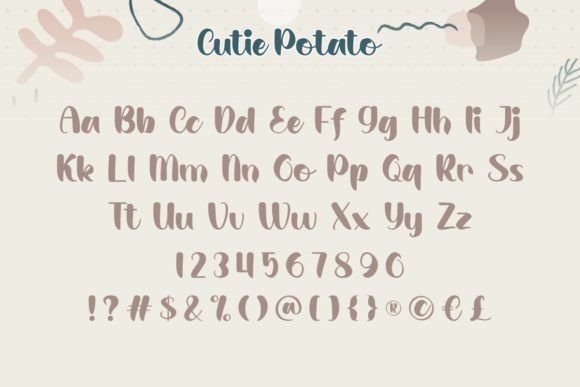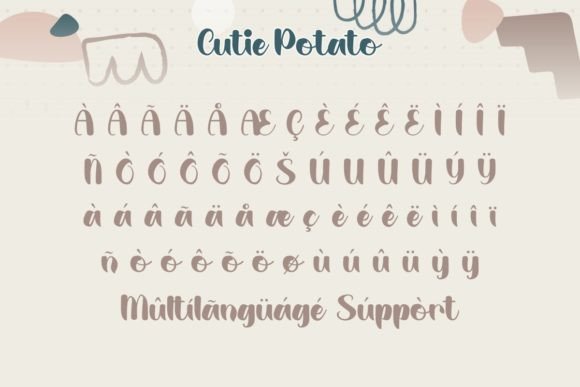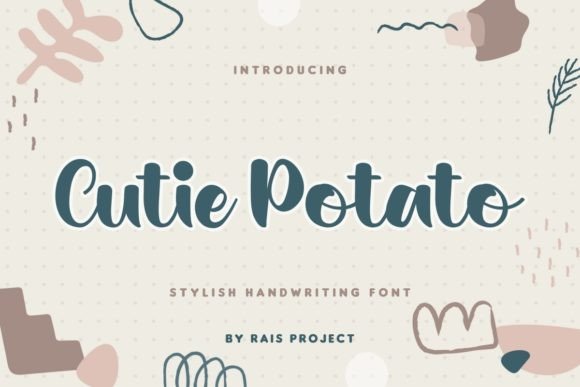
Introducing Cutie Potato Font: The Ultimate Quirky Script Font for Creative Projects
Are you tired of using the same old boring fonts for your creative projects? Look no further! Cutie Potato Font is here to add a touch of whimsy and playfulness to your designs. This fun and quirky script font is perfect for designers, crafters, and anyone looking to add some personality to their work.
What Makes Cutie Potato Font So Special?
Cutie Potato Font is a stylish, hand-drawn script font that boasts bold strokes and irregular shapes, giving it a unique and charming personality. Its cute and playful letterforms make it an excellent choice for creative projects that need a dash of fun and quirkiness. Whether you’re working on branding, packaging, or product designs, Cutie Potato Font is sure to make your project stand out from the crowd.
The Perfect Font for Creative Projects
Cutie Potato Font is designed to add a touch of whimsy to your creative projects. Its playful and charming personality makes it perfect for a wide range of applications, including:
- Branding: Use Cutie Potato Font to create a unique and memorable brand identity that sets you apart from the competition.
- Packaging: Add a touch of fun and quirkiness to your product packaging with Cutie Potato Font.
- Product Designs: Use Cutie Potato Font to create eye-catching product designs that showcase your brand’s personality.
- Stationery: Add a playful touch to your stationery, including greeting cards, invitations, and thank-you cards.
- Digital Media: Use Cutie Potato Font to create engaging and fun digital content, including social media graphics, blog posts, and email newsletters.
Key Features of Cutie Potato Font
Here are some of the key features that make Cutie Potato Font so special:
- Hand-drawn letterforms: Each letterform is carefully hand-drawn to give the font a unique and personal touch.
- Bold strokes: The bold strokes used in Cutie Potato Font give it a confident and playful personality.
- Irregular shapes: The irregular shapes used in the font add to its quirky and charming personality.
- Playful and cute: Cutie Potato Font is designed to be playful and cute, making it perfect for creative projects that need a touch of fun.
Why Choose Cutie Potato Font?
There are many fonts available that claim to be fun and quirky, but Cutie Potato Font stands out from the crowd. Here are just a few reasons why you should choose Cutie Potato Font for your next creative project:
- Unique personality: Cutie Potato Font has a unique and charming personality that will make your project stand out.
- Easy to read: Despite its playful personality, Cutie Potato Font is easy to read and understand.
- Versatile: Cutie Potato Font can be used for a wide range of creative projects, from branding and packaging to product designs and digital media.
- High-quality: Cutie Potato Font is a high-quality font that is designed to deliver exceptional results.
Tips for Using Cutie Potato Font
Here are a few tips for using Cutie Potato Font in your creative projects:
- Use it sparingly: While Cutie Potato Font is perfect for adding a touch of whimsy to your project, it’s best to use it sparingly to avoid overwhelming the design.
- Pair it with other fonts: Cutie Potato Font pairs well with other fonts, so don’t be afraid to experiment with different combinations.
- Experiment with colors: Cutie Potato Font looks great in a variety of colors, so don’t be afraid to experiment and find the perfect color for your project.
Cutie Potato Font is a fun and quirky script font that is perfect for creative projects that need a touch of whimsy. Its stylish, hand-drawn feel and bold strokes make it an excellent choice for branding, packaging, and product designs. With its unique personality and versatility, Cutie Potato Font is sure to become a favorite among designers and crafters. So why wait? Download Cutie Potato Font today and add a touch of fun and quirkiness to your next creative project!